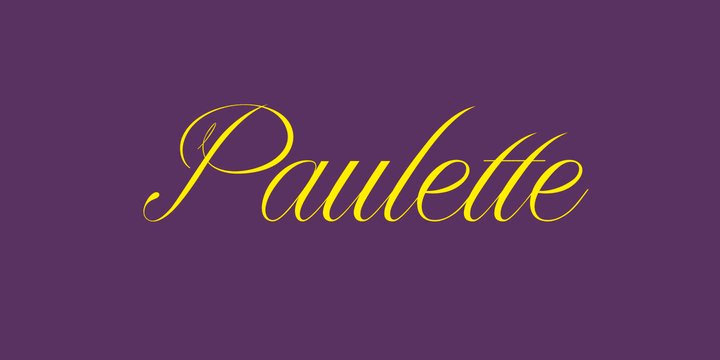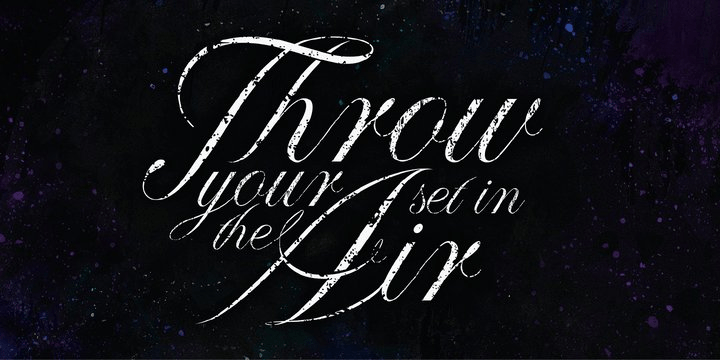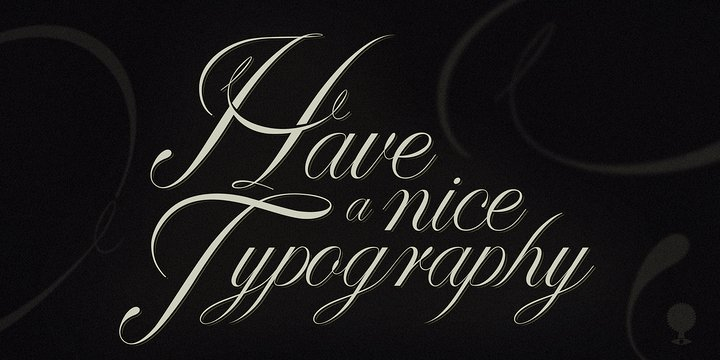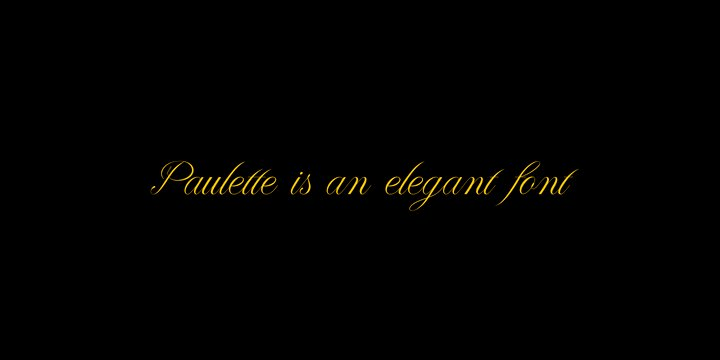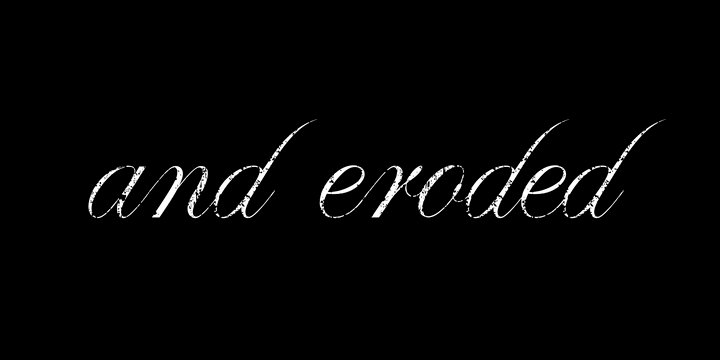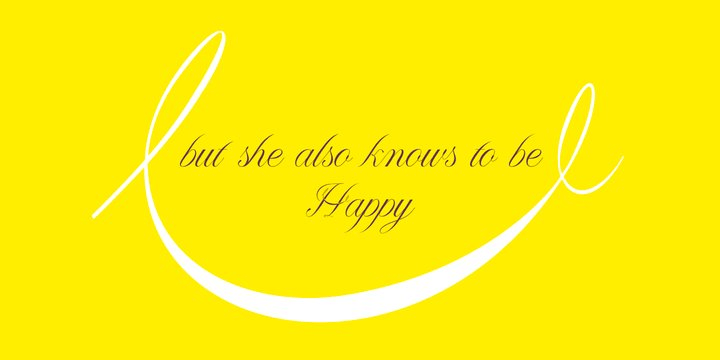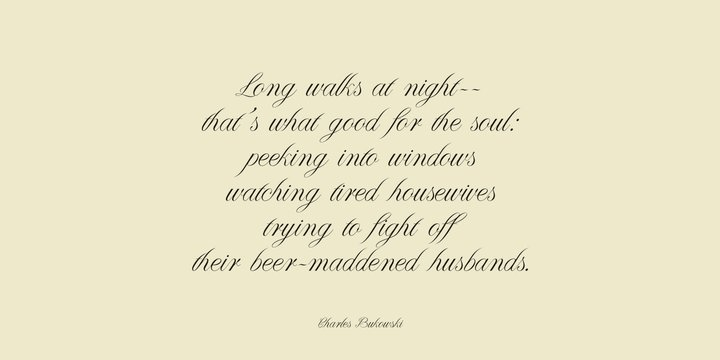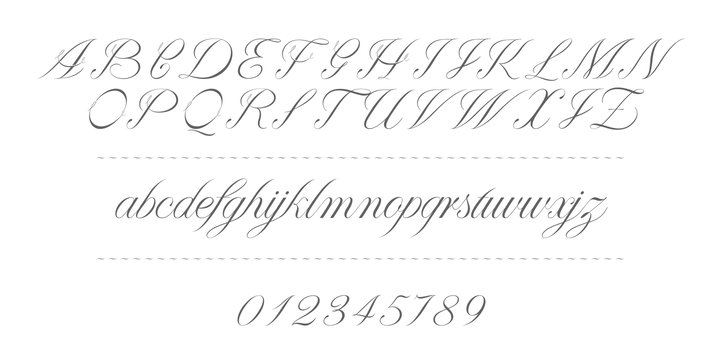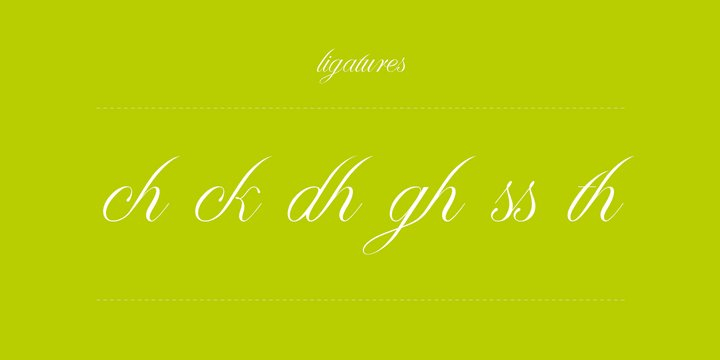
Paulette
Font Family by Rosario Nocera
Paulette is a script typeface, the capital letters are completely unpublished, some of them have a smile-similar ornament (A,F,O,H,Q,B,C,P,G), whereas minuscule letters are inspired to Edwardian font script.
The font is very versatile and is very suitable for typographic compositions with large letters and for medium and small ones.
It includes a complete series of internationals letters, 342 glyphs and 6 new ligatures. Paulette is an elegant letter and it's available in two versions, regular and eroded.